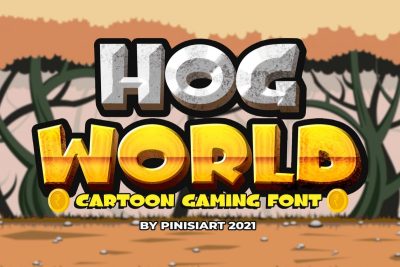
HOG WORLD
Gaming Font Hog World is a bold and dynamic typeface designed to captivate and entertain. Its playful, cartoon-inspired design is perfect for projects targeting younger audiences or those seeking a whimsical touch. Moreover, the chunky letterforms and vibrant style ensure that your designs stand out effortlessly. Whether you’re crafting game titles, branding materials, or promotional assets, this font delivers an unforgettable visual impact.
Inspired by the colorful worlds of animation and video games, Hog World brings fun and energy to any project. In addition, this font is perfect for designers who want to evoke excitement and curiosity in their audience. It has a unique charm that appeals to both game developers and graphic artists alike. Furthermore, Gaming Font Hog World ensures readability while maintaining an engaging visual appeal. Not only does it perform well in digital media, but it also works beautifully in print designs.
Perfect Tool for Engaging Designs
Hog World provides designers with a bold, playful style to enhance their creative projects. For instance, it works perfectly for game titles, in-game text, and promotional banners. As a result, this typeface instantly adds a sense of fun and creativity to your designs.
Additionally, the font adapts easily to different creative needs, ensuring flexibility for a variety of projects. It is also optimized for readability on various screens and platforms. Consequently, Gaming Font Hog World establishes a strong visual identity that grabs attention. Its chunky, colorful letters help your designs connect meaningfully with audiences.
Moreover, Hog World supports multiple languages, making it highly suitable for global projects and localized campaigns. Whether you’re creating logos, user interfaces, or even animated content, this font adds personality and charm to your work seamlessly.
Why Choose Gaming Font Hog World?
Gaming Font Hog World blends creativity and functionality, making it a standout choice for vibrant projects. For example, its eye-catching design is ideal for designs that require a playful, energetic touch. Additionally, it is fully compatible with leading design software, ensuring ease of use for professionals and beginners alike.
By choosing Hog World, you gain a versatile tool that enhances your creative storytelling. Use it to develop games, design marketing materials, or create animated titles with ease. Ultimately, this font transforms your ideas into visuals that leave a lasting impression on your audience.
The big and bold but yet still bring you a smile. HOG WORLD is the man. Suit perfectly for cute children books market, online games, etc.